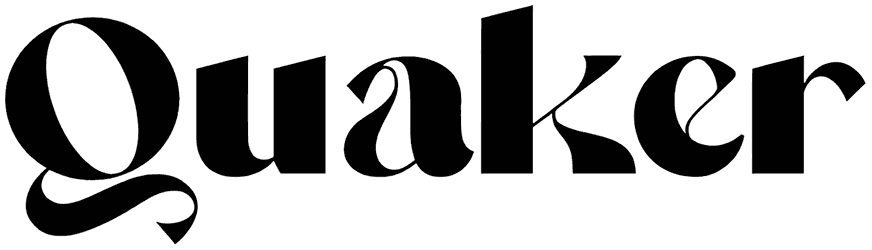
Quaker Font
If you feel your projects need something more than ordinary fonts to stand out, Quaker can bring out the boldness in you. This bold fashion font, used on any design, can enhance your messages without overdoing it. In addition, it creates a personal touch in the writings due to the sense of handwriting that it hides.
So even though it doesn’t have numbers, it works with almost any design, from branding and print projects to custom logos.